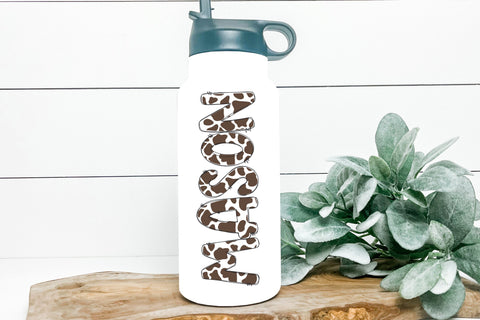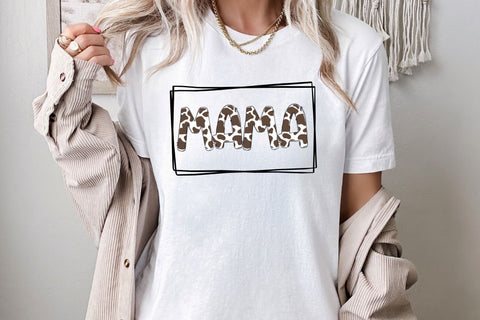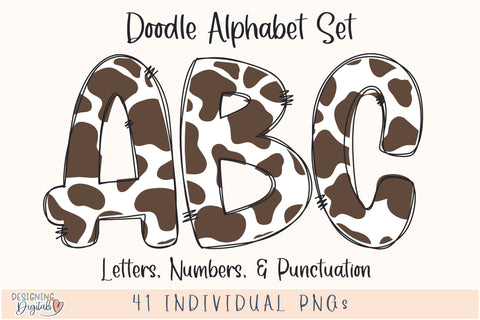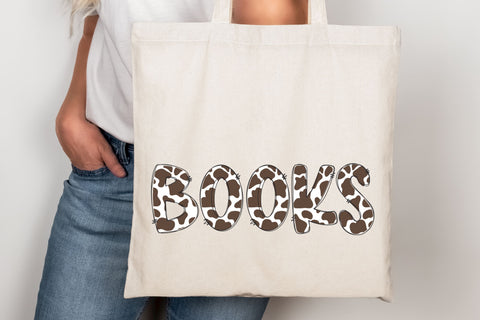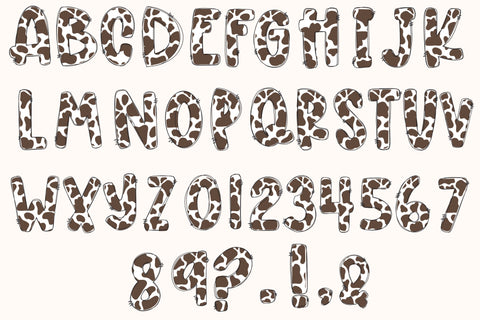
Brown Cow Print Doodle Letters PNG, Country Western Cow Print Sublimation Alphabet, Farm Animal Print Clipart for Tshirts, Stickers & More
Bring a touch of rustic charm to your designs with our Brown Cow Print Doodle Letters PNGs! This adorable Cow Print Sublimation Alphabet is perfect for creating unique, personalized items like farm theme T-shirts, invitations, or digital artwork. Featuring cute Farm Animal Print Clipart letters these doodle letters are ideal for adding a country western inspired flair to your projects. Perfect for crafters who love farmhouse aesthetics, this alphabet is great for any project that needs a fun and cute touch!